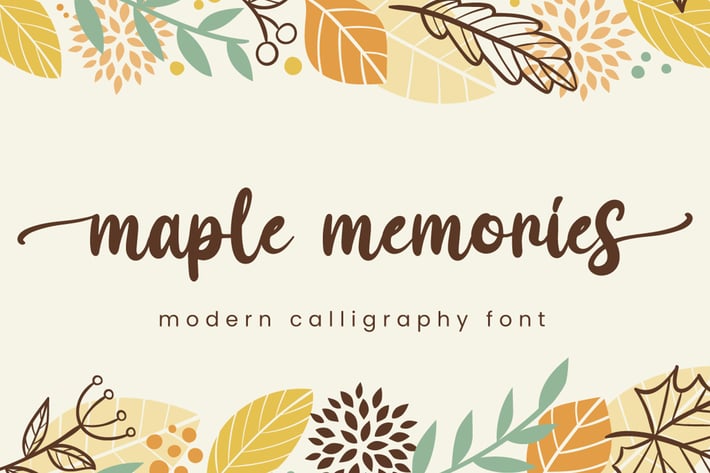
Maple Memories - Script Font
Maple Memories is a delicate and incredibly handwritten font. Fall in love with its incredibly versatile style and use it to create spectacular designs!
Beginning & Ending Swash